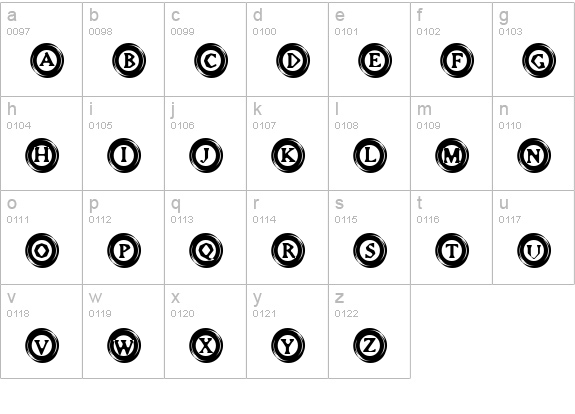
Elevator Buttons Font Details
Elevator Buttons font is a modern and sleek typeface perfect for adding a touch of sophistication to your designs. Its clean lines and rounded edges give it a friendly and approachable feel, making it ideal for a wide range of projects. Whether you're creating invitations, posters, or branding materials, Elevator Buttons font will elevate your design to the next level. And the best part? Elevator Buttons font is completely free to download at FontsMarket.com. So go ahead and upgrade your typography game with this stylish and versatile font today!